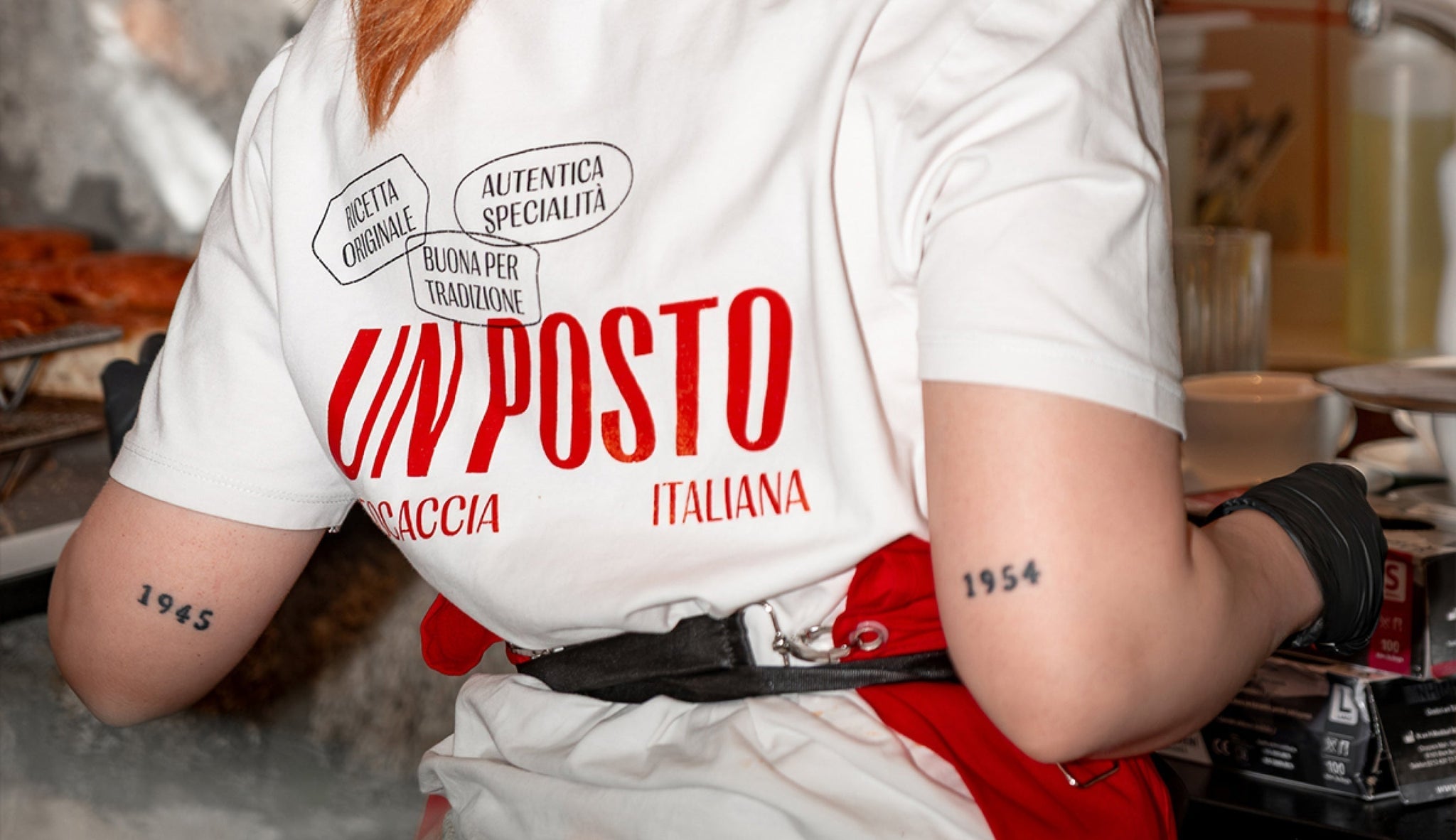
Un Posto has established itself as Turkey’s first brand dedicated exclusively to focaccia, bringing authentic Italian street food culture to İzmir with a singular focus that sets it apart from competitors.
The focacceria’s identity, crafted by Milan-based studio Velvele, draws from genuine Italian references while avoiding the tired visual clichés that often plague Italian-themed restaurant branding.
“Un Posto wasn’t our first collaboration with this client – we’ve worked together across food, beverage and entertainment projects for over a year,” explains Çağıl Aygen, Creative Director at Velvele. The brief called for a complete brand universe encompassing strategy, naming, packaging and social media that would capture Italy’s essence while standing out in İzmir's competitive food scene.
“Velvele’s approach centres on what Aygen describes as embracing familiarity without falling into overused tropes. The studio referenced authentic Italian inspirations including beachside umbrellas from Portofino and typography found on small-town storefronts. This research informed their signature bold slogans – ‘Autentica specialità,’ ‘Ricetta originale,’ and ‘Buona per tradizione’ – which appear prominently across awnings and brand materials.
The type selection proved crucial to achieving the right balance of nostalgia and contemporary appeal. Right Gothic from Pangram anchors the identity with its condensed, italic structure that feels authentic to Italian signage. “It feels like it belongs on a loud, charming storefront in Italy – condensed, italic, and full of character,” Aygen notes. “It gave us both the boldness and warmth we needed to anchor the identity.”
Visual elements receive strategic deployment throughout the system. The signature striped pattern uses red paired with pink rather than traditional white, creating a fresher interpretation of classic Italian visual codes. “That pink made all the difference,” Aygen explains. Rather than saturating every touchpoint, the stripes appear selectively on interior decor, social media backgrounds and packaging, giving them greater impact when they do appear.
The design system operates through four distinct storytelling pillars. The ‘Seven Days of Focaccia’ concept names each sandwich after Italian numbers, creating a playful ritual that introduces customers to the Italian language. Bold brand marks featuring Italian slogans reinforce culinary heritage while bringing visual rhythm to applications from stickers to print collateral. The strategic stripe usage has proven particularly effective – customers now recognise the brand by the pattern alone, with staff reportedly hearing requests for ‘that stripe place.’ “Thanks to the logotype and signage, we created something people actually stop and photograph,” says Aygen. “The storefront typography became a visual magnet – and that’s no accident.”
The project benefits from Aygen's decade-long residency in Milan, providing cultural insights that informed authentic design decisions. This connection enabled the team to reference genuine Italian visual culture rather than relying on generic Mediterranean aesthetics, resulting in an identity that resonates with both Italian authenticity and Turkish hospitality values.